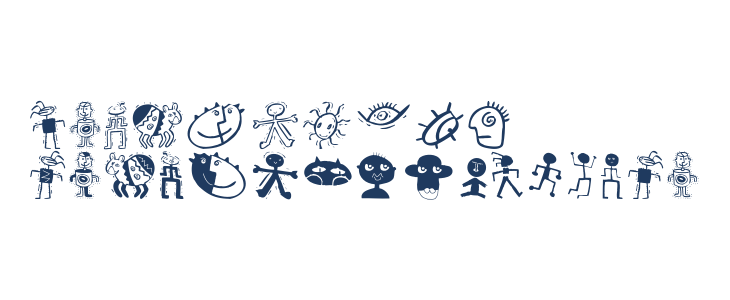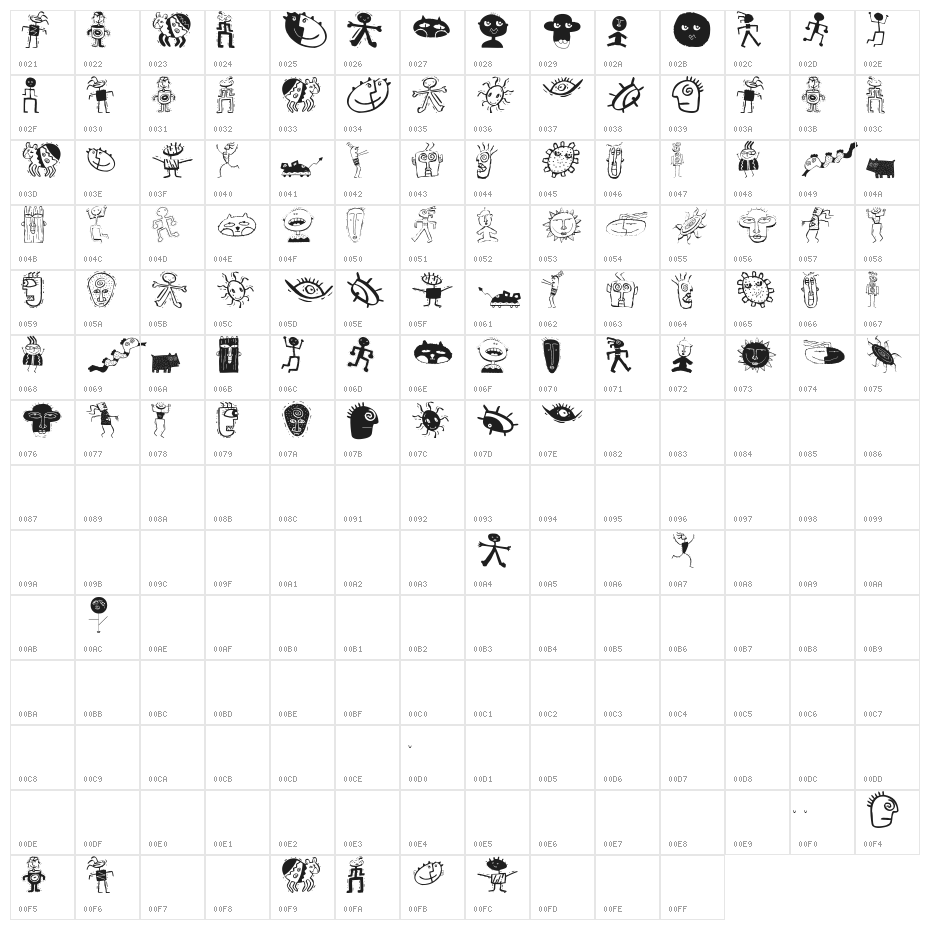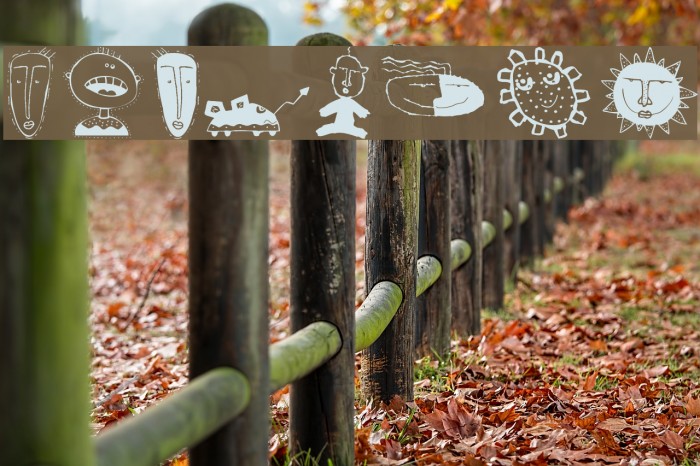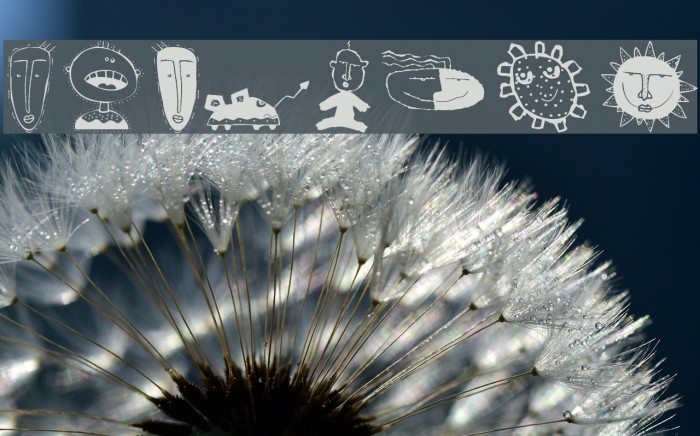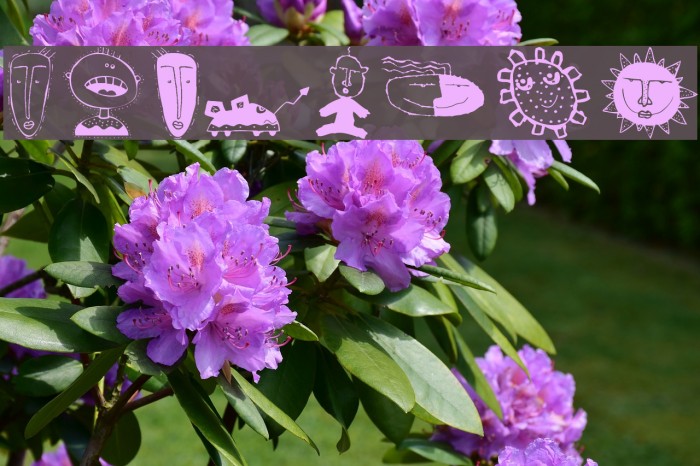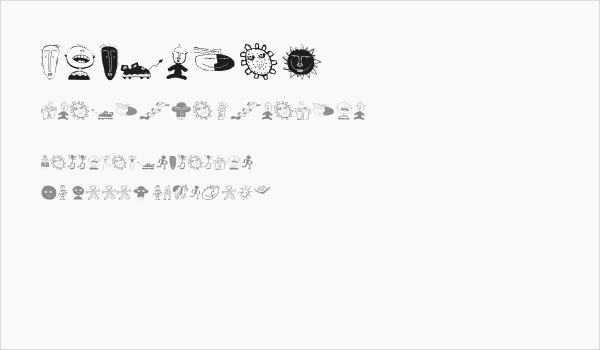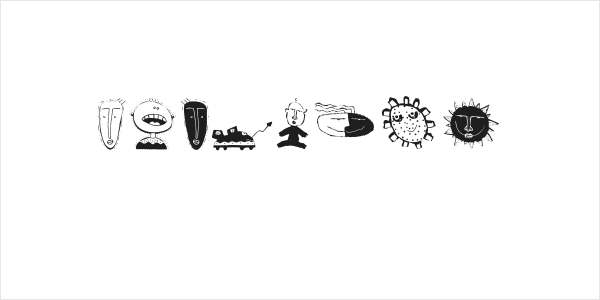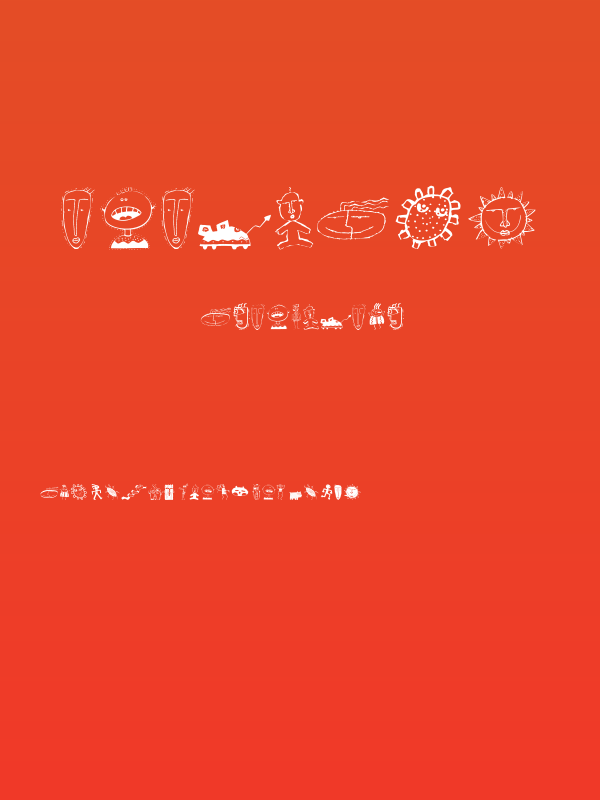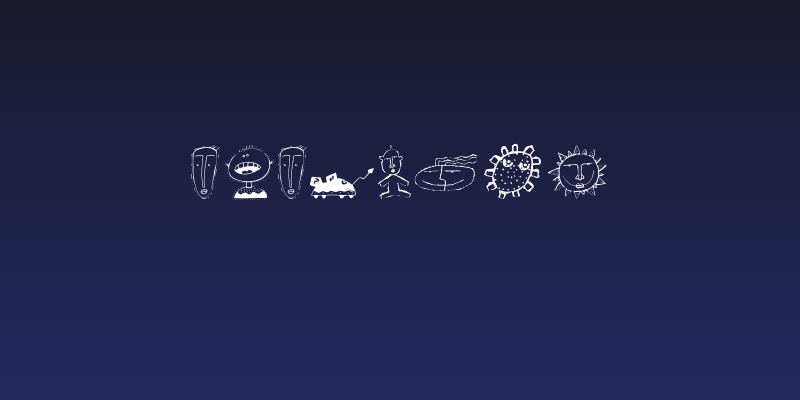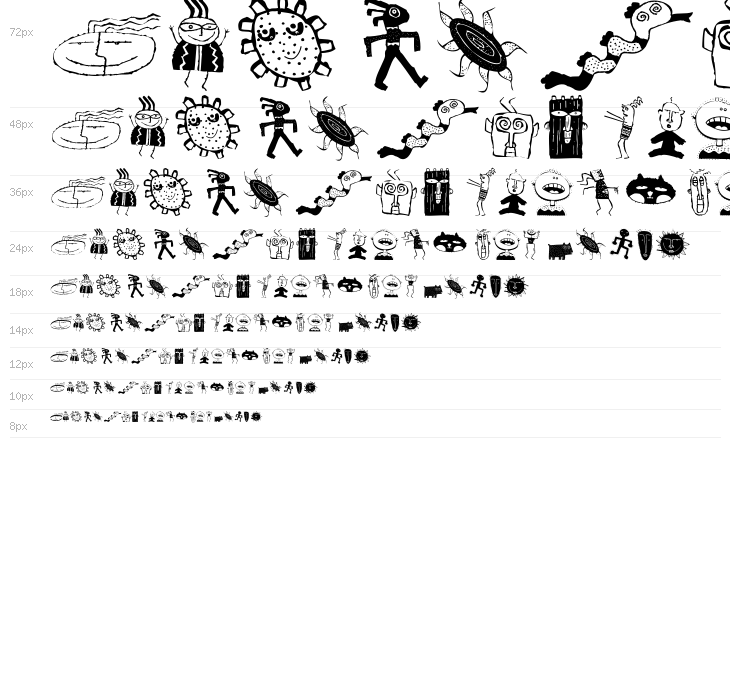
PopArtes Font
| Caso d'uso | Logos, Art projects, Posters |
| Progetti proposti | Ideal for creative projects such as art posters, album covers, or any design work that seeks to incorporate a unique and artistic flair. |